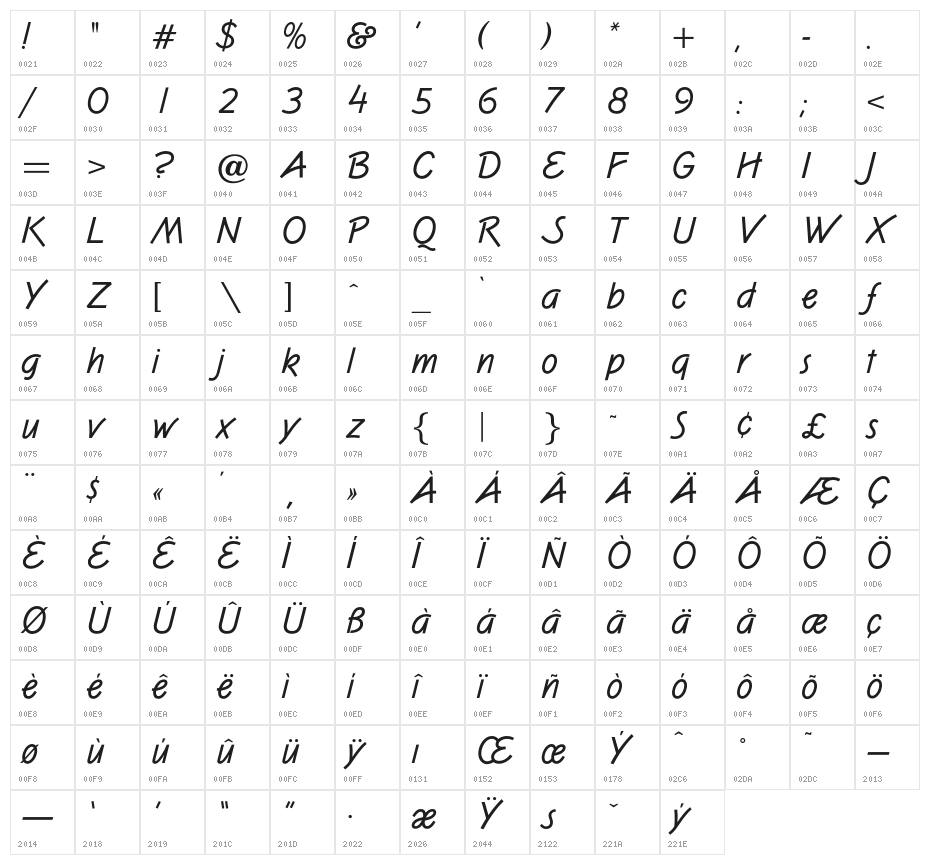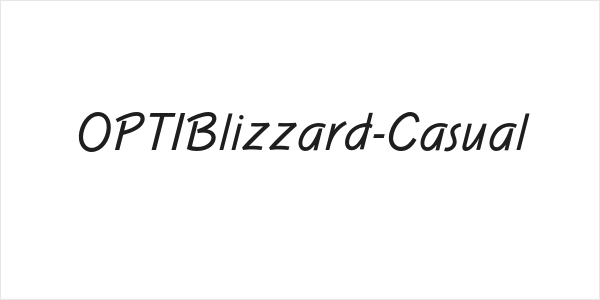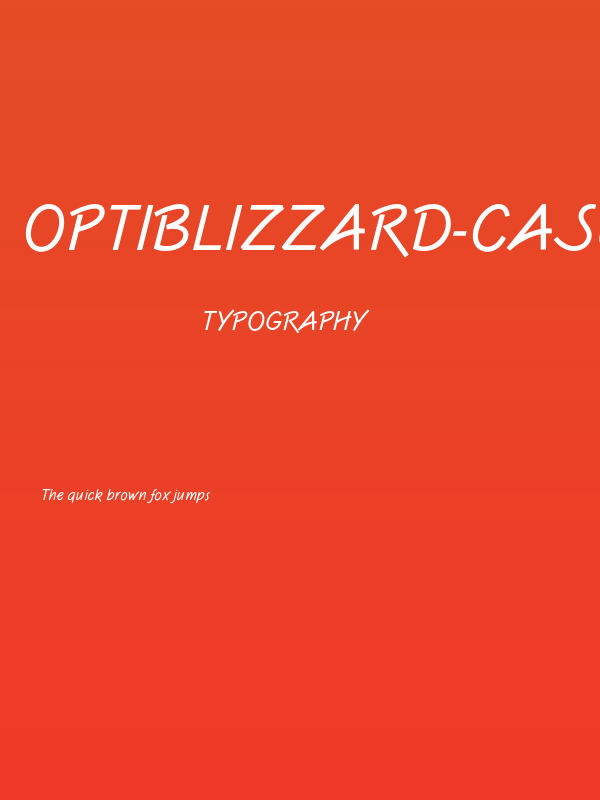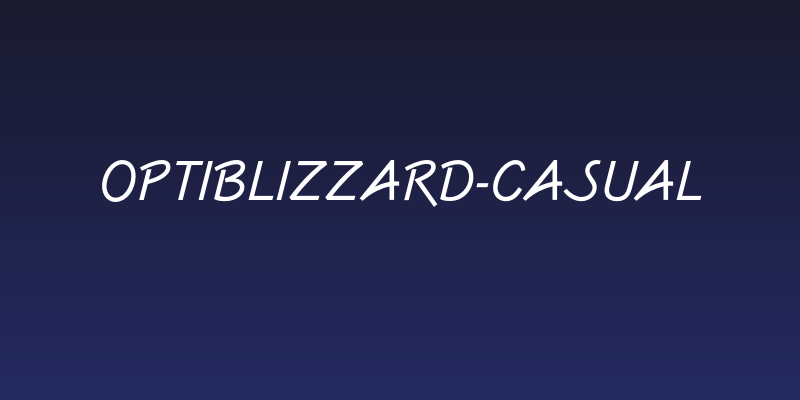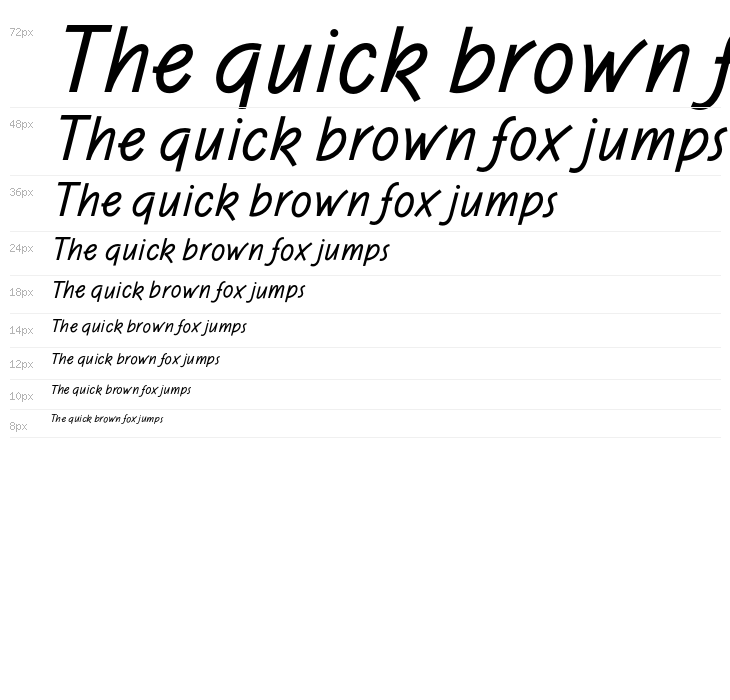
OPTIBlizzard-Casual Font
This font features a dynamic and casual style with a slight slant, giving it an informal yet sophisticated appearance. The characters are well-balanced with smooth curves and sharp edges, creating a sense of movement and energy. The uppercase letters are bold and prominent, while the lowercase letters maintain a consistent flow, enhancing readability. The numerals are distinct and align well with the overall design, making them suitable for various applications. Special characters are crafted with attention to detail, ensuring they complement the alphabetic characters seamlessly.
Proposed ProjectsIdeal for branding, advertising, and creative projects that require a lively and approachable aesthetic.